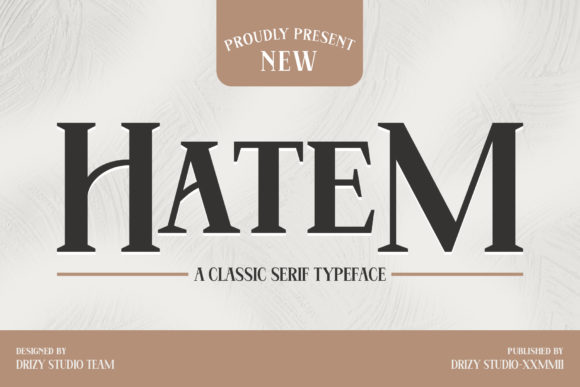
Introducing Hatem Font: The Epitome of Elegance for Your Design Endeavors
Embark on a typographic journey that exudes timeless sophistication with Hatem Font, a captivating serif masterpiece crafted by the esteemed Drizy Studio. This font's essence lies in its ability to elevate your creations, adding a touch of vintage charm and a dash of contemporary flair.
Hatem Font: A Canvas for Your Creative Expressions
With its meticulously crafted curves and graceful strokes, Hatem Font lends itself seamlessly to a myriad of design projects, from the heartfelt to the purely artistic. Imagine your wedding invitations adorned with its intricate flourishes, each letter a testament to the momentous occasion it heralds. Envision greeting cards that emanate warmth and affection, their messages beautifully conveyed through the elegant lines of Hatem Font.
The Allure of Vintage Charm, Reimagined
Step into a realm where nostalgia intertwines with modernity, where the allure of vintage aesthetics meets the sophistication of contemporary design. Hatem Font is the perfect companion for vintage T-shirts, its timeless character adding an air of authenticity to your creations. Whether you're a seasoned designer or a budding enthusiast, Hatem Font empowers you to infuse your work with a touch of timeless charm.
A Font that Inspires, Word by Word
With Hatem Font, every word you write carries the weight of emotion and the promise of captivating your audience. Its graceful curves evoke a sense of romance, while its confident strokes convey a touch of boldness. Witness the transformative power of this font as it breathes life into your words, turning them into captivating narratives and unforgettable expressions.
Dive into the World of Hatem Font: A Typographic Adventure Awaits
Hatem Font is more than just a collection of letters; it's an invitation to embark on a typographic adventure where creativity knows no bounds. Let its elegant curves guide your designs, adding a touch of refinement and a hint of vintage charm to every project you undertake. Experience the magic of Hatem Font and let your designs soar to new heights of beauty and sophistication.